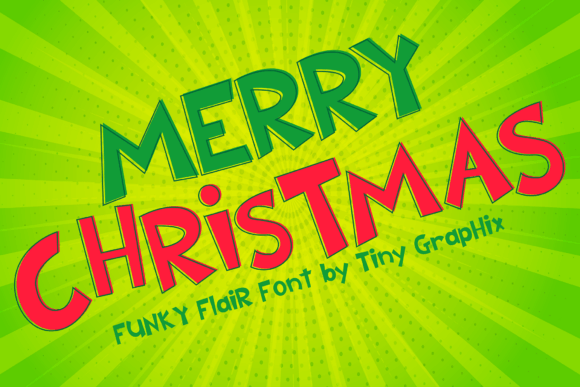
Unleash Your Creativity with Funky Flair Font
I’ll never forget the time I was working on a project for a client’s birthday party invitation. I had the design concept nailed down, but something was missing – the perfect font. I scoured the internet, tried out dozens of fonts, but none seemed to capture the playful, vibrant vibe I was going for. That’s when I stumbled upon Funky Flair Font. It was love at first sight! ✨ The quirky, pop-art inspired design instantly elevated my project, and my client was thrilled. If you’re a designer, crafter, or creative hobbyist looking for a font that embodies playfulness and authenticity, you’re in luck!
A Personal Review of Funky Flair Font
- ✨ Unique and eye-catching design: Funky Flair Font is a stylish, fun, and playful display font that’s sure to turn heads.
- ✅ Versatile: This font is perfect for a wide range of projects, from blog posts and logos to branding, ads, invitations, greeting cards, planners, photo albums, decorations, and more.
- 🎉 Perfect for crafting and sublimation projects: The whimsical design of Funky Flair Font adds a cheeky touch to any project, making it ideal for crafting, sublimation, and holiday projects.
While Funky Flair Font is an amazing addition to any design project, there are a few things to keep in mind: ⚠️
- 🤔 Legibility at small sizes: As with many decorative fonts, Funky Flair Font may not be the best choice for body text or small sizes. It’s best used for headlines or titles.
- ⚠️ Overuse: While the font is playful and fun, using it excessively can make your design look cluttered. Balance is key!
The Designer Inspiration Behind Funky Flair Font
While the true story behind Funky Flair Font’s creation is unknown, it’s easy to imagine a designer who was inspired by the vibrant colors and playful patterns of pop art. Perhaps they wanted to create a font that would bring a smile to people’s faces and add a touch of whimsy to their designs. Whatever the inspiration, Funky Flair Font is a true gem that deserves to be part of your design toolkit.
Q: What type of projects is Funky Flair Font best suited for?
A: Funky Flair Font is perfect for eye-catching designs such as blog posts, logos, branding, ads, invitations, greeting cards, planners, photo albums, decorations, and more.
Q: Is Funky Flair Font available in different weights or styles?
A: While Funky Flair Font may not have multiple weights or styles, its unique design and OpenType features make it versatile enough to be used in a variety of contexts.